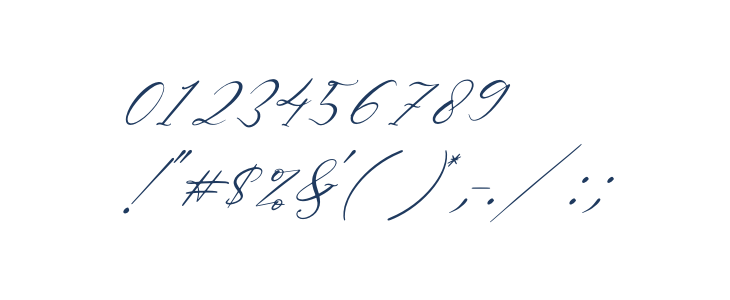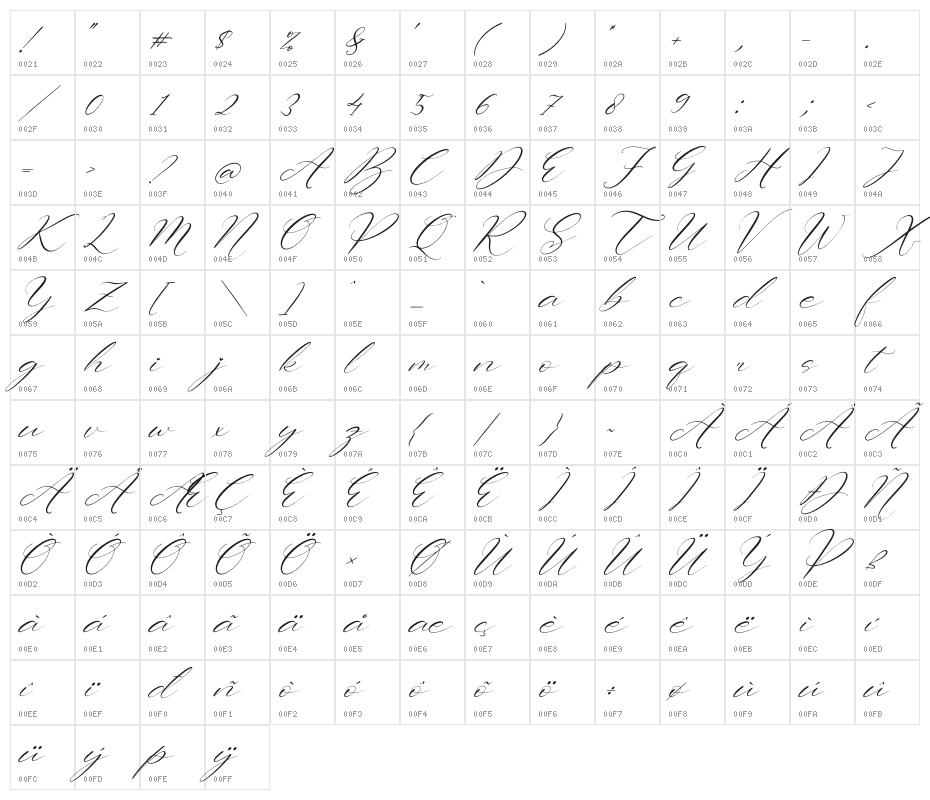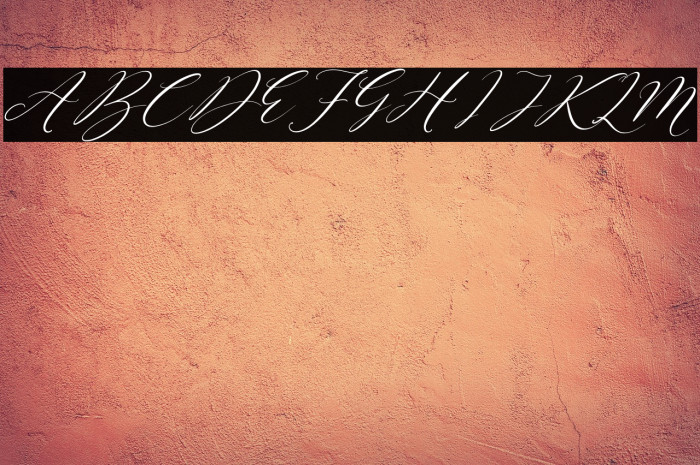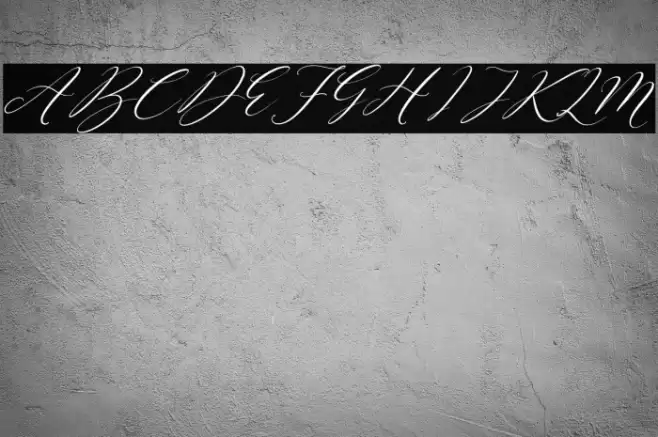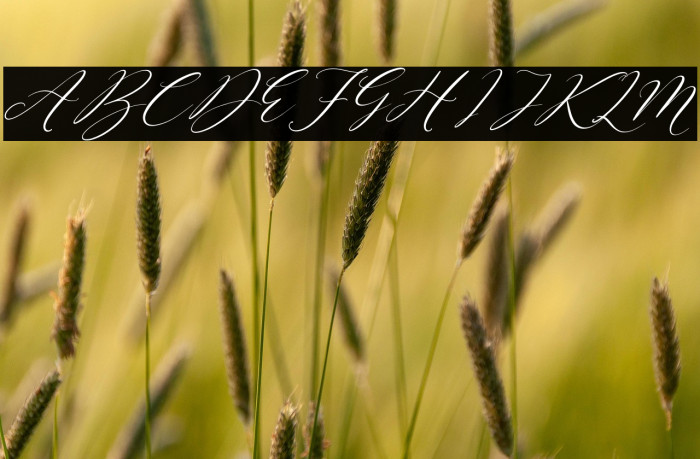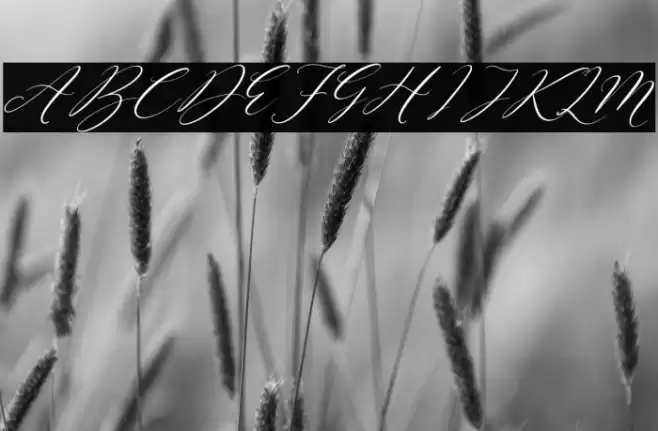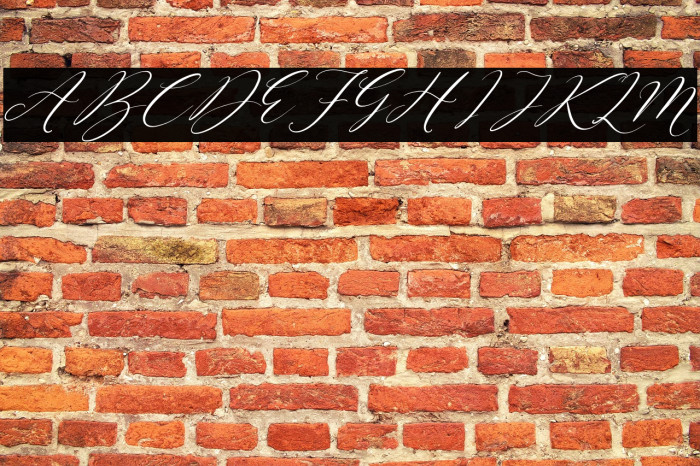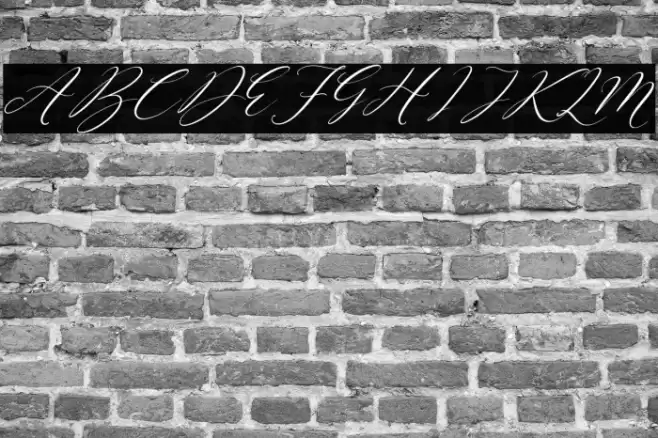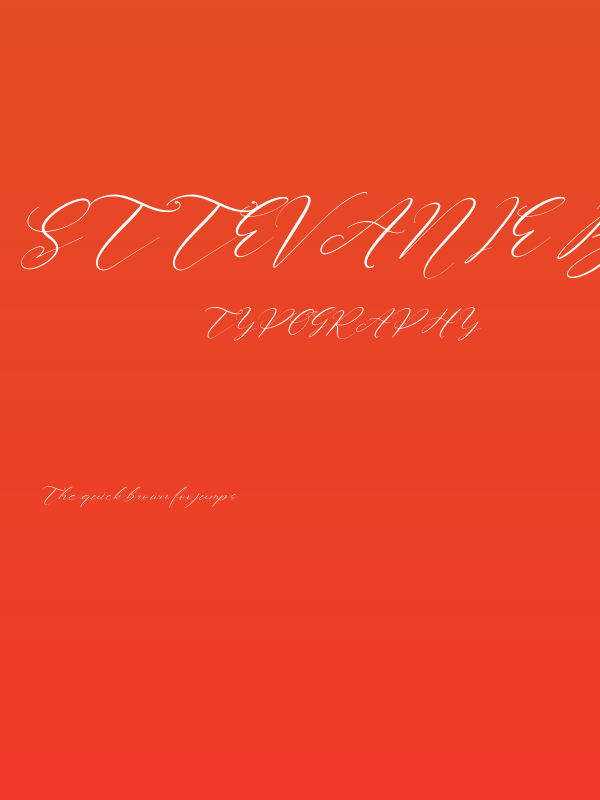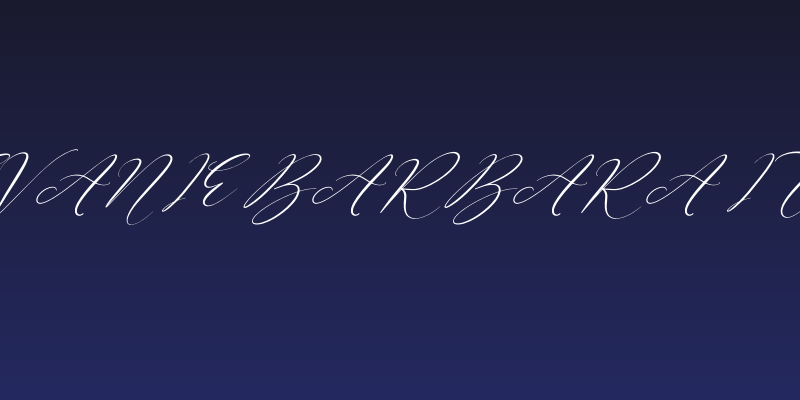
Sttevanie Barbara Italic Font
Sttevanie Barbara Italic Description
This elegant script font exudes a sense of sophistication and fluidity, characterized by its graceful, flowing lines and delicate curves. The letters are interconnected, creating a seamless and harmonious appearance that mimics the art of calligraphy. The uppercase letters are slightly more ornate, with flourishes that add a touch of drama, while the lowercase letters maintain a consistent rhythm and balance. The numerals and special characters are designed to complement the alphabet, maintaining the same elegant style. This font is perfect for projects that require a personal touch, such as invitations, greeting cards, and branding materials.
| Overall Style | Elegant, Calligraphic |
| Use Case | Invitations, Branding, Artistic projects |
| Proposed Projects | Ideal for wedding invitations, elegant branding, personal stationery, and artistic projects. |